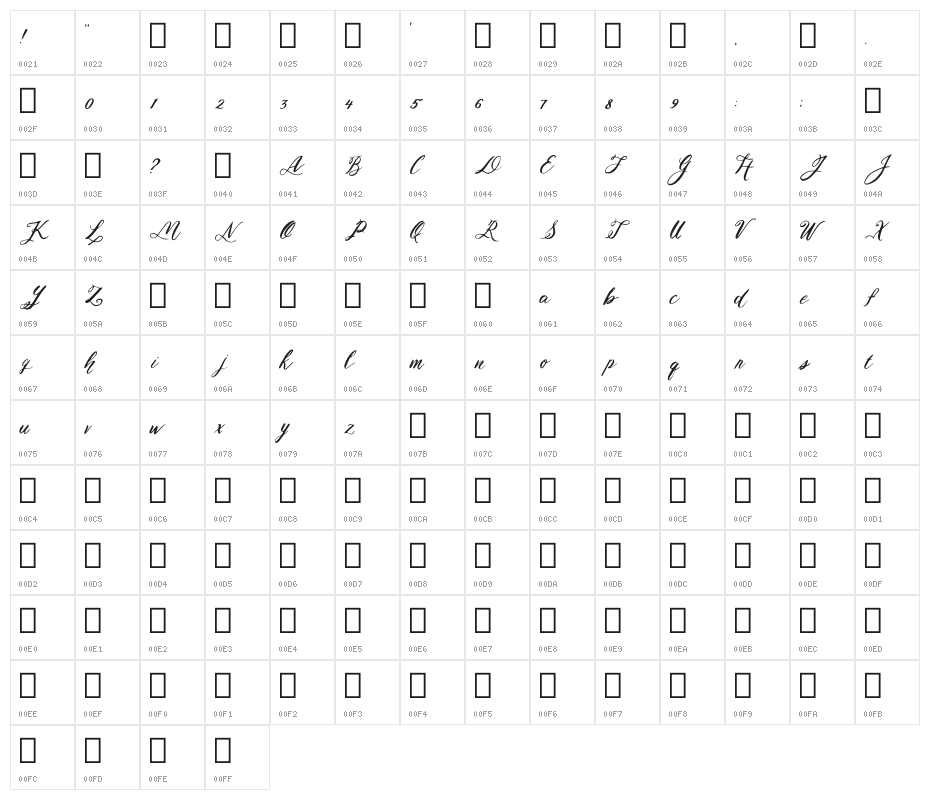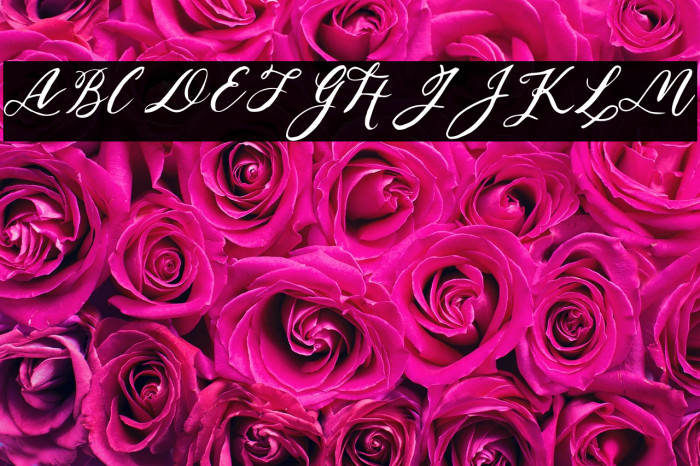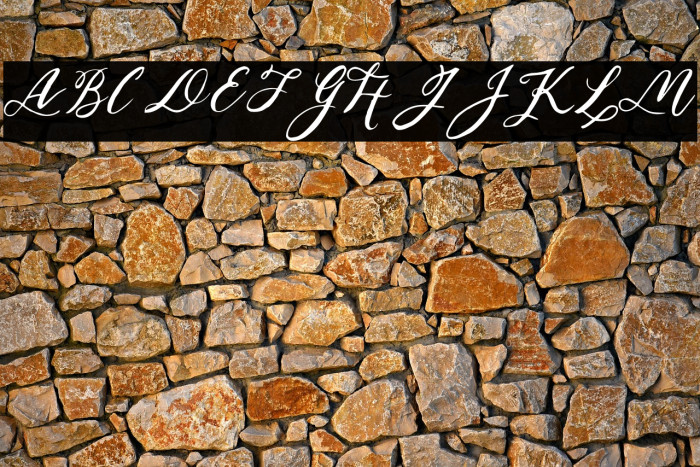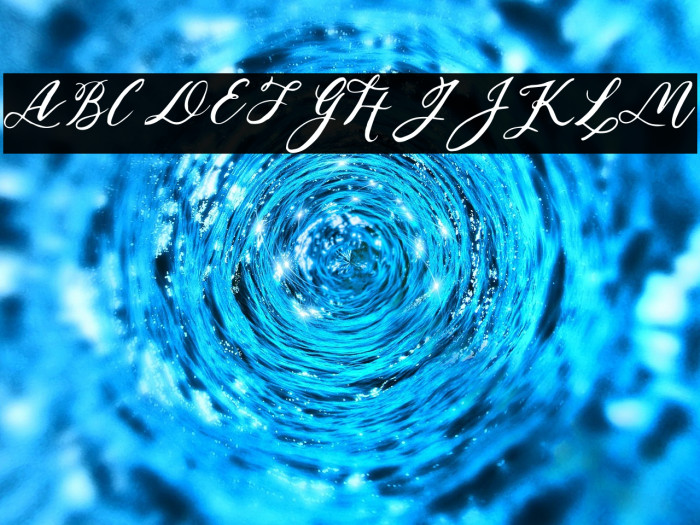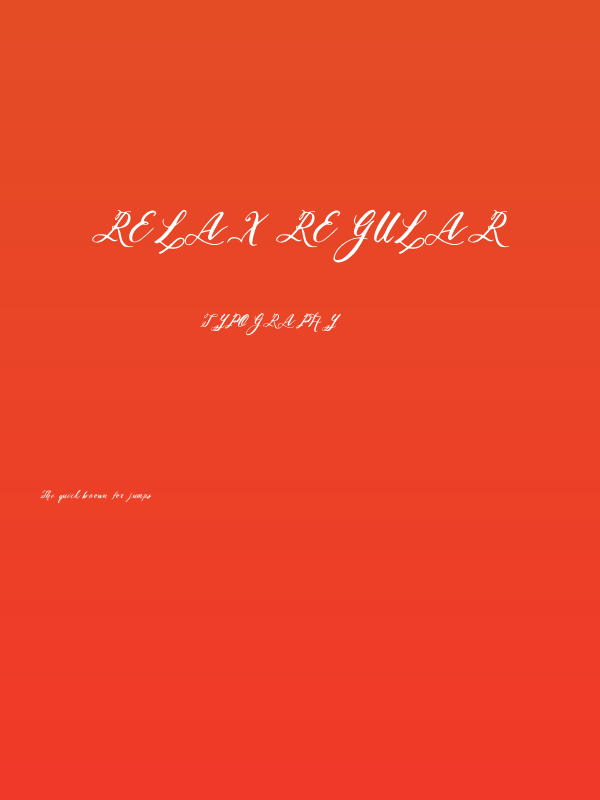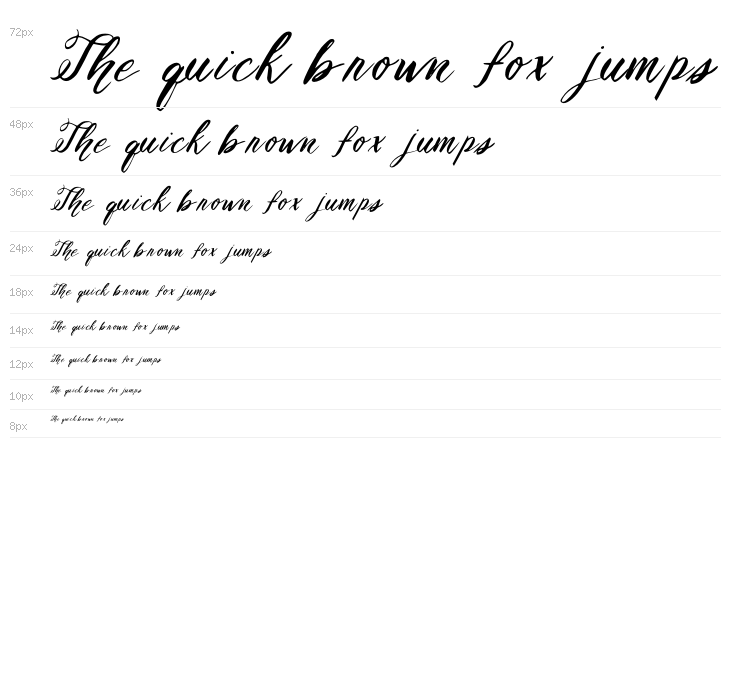
Relax Regular Font
Relax Regular Description
This font features an elegant and flowing script style, characterized by its cursive, handwritten appearance. The uppercase letters exhibit a graceful, sweeping motion with decorative flourishes, while the lowercase letters maintain a smooth, connected flow. The numerals are consistent with the script style, offering a cohesive look. The special characters complement the overall aesthetic, adding to its decorative appeal. This font is ideal for projects that require a touch of sophistication and elegance.
| Overall Style | Elegant, Decorative |
| Use Case | Headlines, Invitations, Logos |
| Proposed Projects | Wedding invitations, greeting cards, branding, and logo design. |